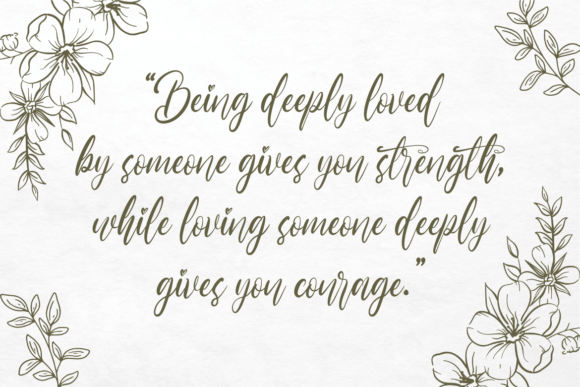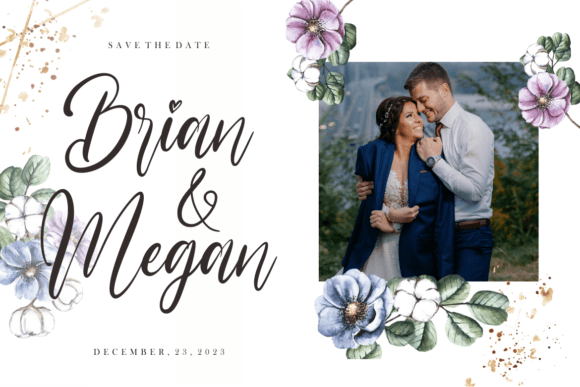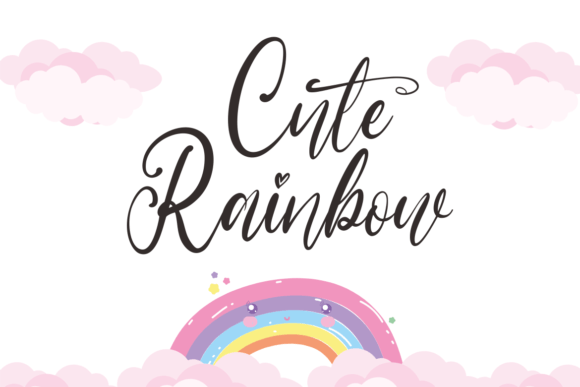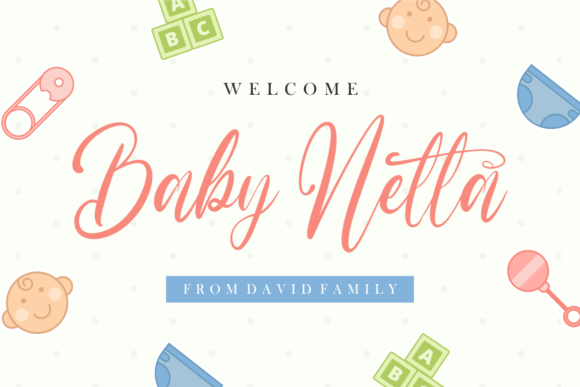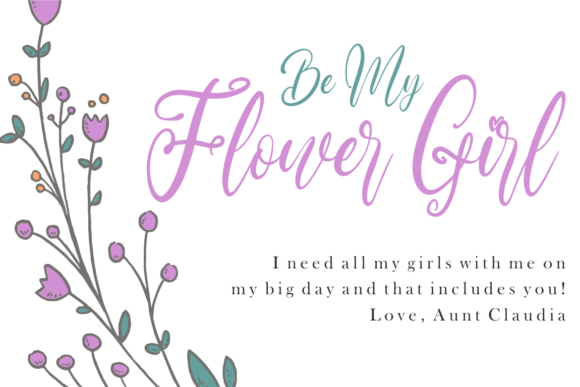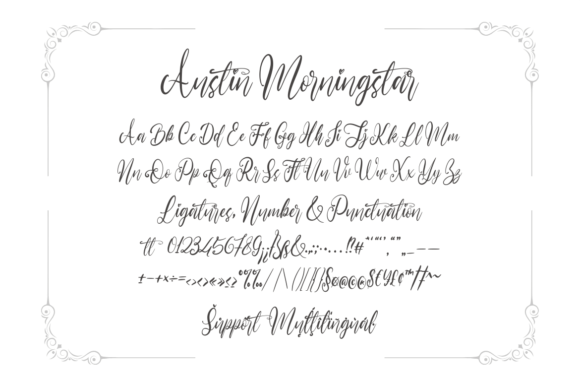
Austin Morningstar Font: Elevate Your Designs with Elegance and Romance
Are you looking for a font that can add a touch of sophistication and romance to your designs? Look no further than the Austin Morningstar Font. This stylish, modern, and elegant handwritten script font is perfect for a wide range of applications, from greeting cards to headlines, and everything in between.
What Makes Austin Morningstar Font Special?
Austin Morningstar Font is a unique and beautiful font that is sure to make your designs stand out. Its elegant and flowing script style is perfect for creating romantic and sophisticated designs that will leave a lasting impression. Whether you’re a designer, crafty, or simply someone who loves to create, this font is a must-have in your collection.
Key Features of Austin Morningstar Font
- Handwritten Script Style: Austin Morningstar Font has a beautiful handwritten script style that is both elegant and modern.
- Romantic and Sophisticated: This font is perfect for creating romantic and sophisticated designs that will add a touch of elegance to your creations.
- Versatile: Austin Morningstar Font is suitable for a wide range of applications, from greeting cards to headlines, and many more.
Uses of Austin Morningstar Font
Austin Morningstar Font is a versatile font that can be used in a variety of ways. Here are some ideas to get you started:
- Greeting Cards: Create beautiful and romantic greeting cards for special occasions like weddings, anniversaries, and Valentine’s Day.
- Headlines: Use Austin Morningstar Font to create stunning headlines for your blog posts, articles, and social media posts.
- Logos: Create a beautiful and elegant logo for your business or brand using this font.
- Invitations: Design stunning invitations for parties, weddings, and other special events.
- Stationery: Create beautiful stationery like notebooks, journals, and letterheads using Austin Morningstar Font.
Tips for Using Austin Morningstar Font
Here are some tips to help you get the most out of Austin Morningstar Font:
- Use it Sparingly: Use Austin Morningstar Font sparingly to add a touch of elegance to your designs. Overusing the font can make your designs look cluttered and messy.
- Pair it with Other Fonts: Pair Austin Morningstar Font with other fonts to create a unique and interesting design.
- Experiment with Colors: Experiment with different colors to find the perfect combination that works with Austin Morningstar Font.
Austin Morningstar Font is a beautiful and elegant handwritten script font that is perfect for designers, crafty, and anyone who loves to create. Its romantic and sophisticated style makes it ideal for a wide range of applications, from greeting cards to headlines, and many more. With its ease of use and versatility, Austin Morningstar Font is a must-have in your font collection.
- What is Austin Morningstar Font?: Austin Morningstar Font is a stylish, modern, and elegant handwritten script font.
- What is Austin Morningstar Font used for?: Austin Morningstar Font is suitable for a wide range of applications, from greeting cards to headlines, and many more.